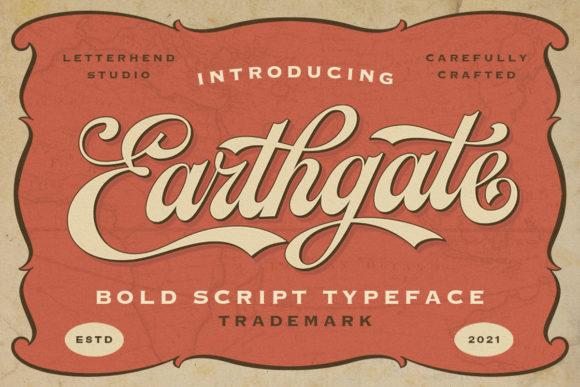
Introducing Earthgate Font: The Ultimate Retro-Inspired Handwritten Font
Are you looking for a font that can add a touch of nostalgia and retro flair to your designs? Look no further than Earthgate Font. This gorgeous and bold handwritten font is crafted to give your headlines and logotype projects a stylish, retro touch that’s sure to turn heads.
What is Earthgate Font?
Earthgate Font is a carefully crafted handwritten font that’s designed to evoke a sense of nostalgia and retro charm. With its bold and dynamic strokes, this font reads as strong, confident, and full of character. Whether you’re working on a headline, logotype, or any other design project, Earthgate Font is the perfect choice for adding a touch of personality and style.
Key Features of Earthgate Font
- Bold and Dynamic Strokes: Earthgate Font features bold and dynamic strokes that give it a strong and confident look.
- Retro-Inspired Design: This font is inspired by classic retro designs, making it perfect for adding a touch of nostalgia to your projects.
- Handwritten Style: Earthgate Font has a beautiful handwritten style that’s perfect for adding a personal touch to your designs.
- High-Quality Design: This font is carefully crafted with high-quality design principles in mind, ensuring that it looks great in any context.
Why Choose Earthgate Font?
So why choose Earthgate Font for your design projects? Here are just a few reasons:
- Unique and Memorable: Earthgate Font is a unique and memorable font that’s sure to make your designs stand out.
- Versatile: This font is versatile and can be used in a wide range of design projects, from headlines and logotypes to posters and packaging.
- Easy to Read: Despite its bold and dynamic strokes, Earthgate Font is easy to read and understand, making it perfect for use in body text as well as headlines.
- Supports Multiple Languages: This font supports multiple languages, making it a great choice for designers working on international projects.
How to Use Earthgate Font
Using Earthgate Font is easy. Here are a few tips to get you started:
- Headlines and Logotypes: Use Earthgate Font for headlines and logotypes to add a touch of personality and style to your designs.
- Posters and Flyers: This font is perfect for use in posters and flyers, where its bold and dynamic strokes can really make an impact.
- Packaging Design: Earthgate Font can be used in packaging design to add a touch of nostalgia and retro flair.
- Digital Design: This font can be used in digital design projects, such as website headers and social media graphics.
Tips for Pairing Earthgate Font with Other Fonts
Pairing Earthgate Font with other fonts can be a great way to add contrast and interest to your designs. Here are a few tips:
- Use a Sans-Serif Font: Pair Earthgate Font with a sans-serif font, such as Arial or Helvetica, to create a bold and modern look.
- Try a Script Font: Pairing Earthgate Font with a script font, such as Pacifico or Great Vibes, can create a beautiful and elegant look.
- Experiment with Serif Fonts: Earthgate Font can also be paired with serif fonts, such as Times New Roman or Georgia, to create a more traditional look.
Earthgate Font is a gorgeous and bold handwritten font that’s perfect for adding a touch of nostalgia and retro flair to your designs. With its bold and dynamic strokes, this font reads as strong, confident, and full of character. Whether you’re working on a headline, logotype, or any other design project, Earthgate Font is the perfect choice.